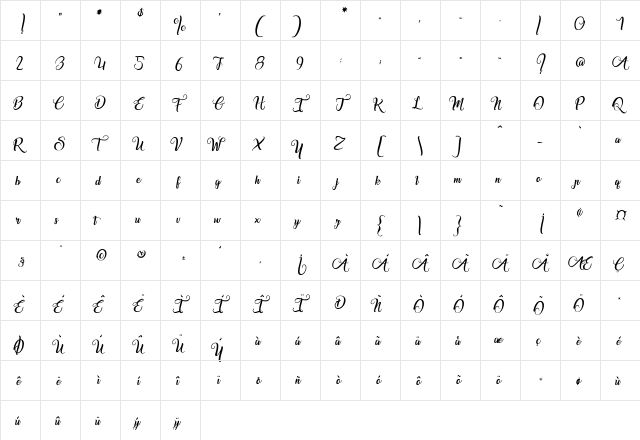
Marchand de Venise Regular
Design Context for Marchand de Venise Typeface
Marchand de Venise brings a calligraphic fluidity to the page — its connecting strokes and expressive curves give it an unmistakably human quality.
Font Pairing: Combine Marchand de Venise with a simple geometric sans for maximum contrast — the tension between flowing curves and clean structure is a classic typographic pairing.
Pro Tip: Use Marchand de Venise for short runs of text — names, titles, or taglines. Extended body copy in script faces tires the eye quickly.